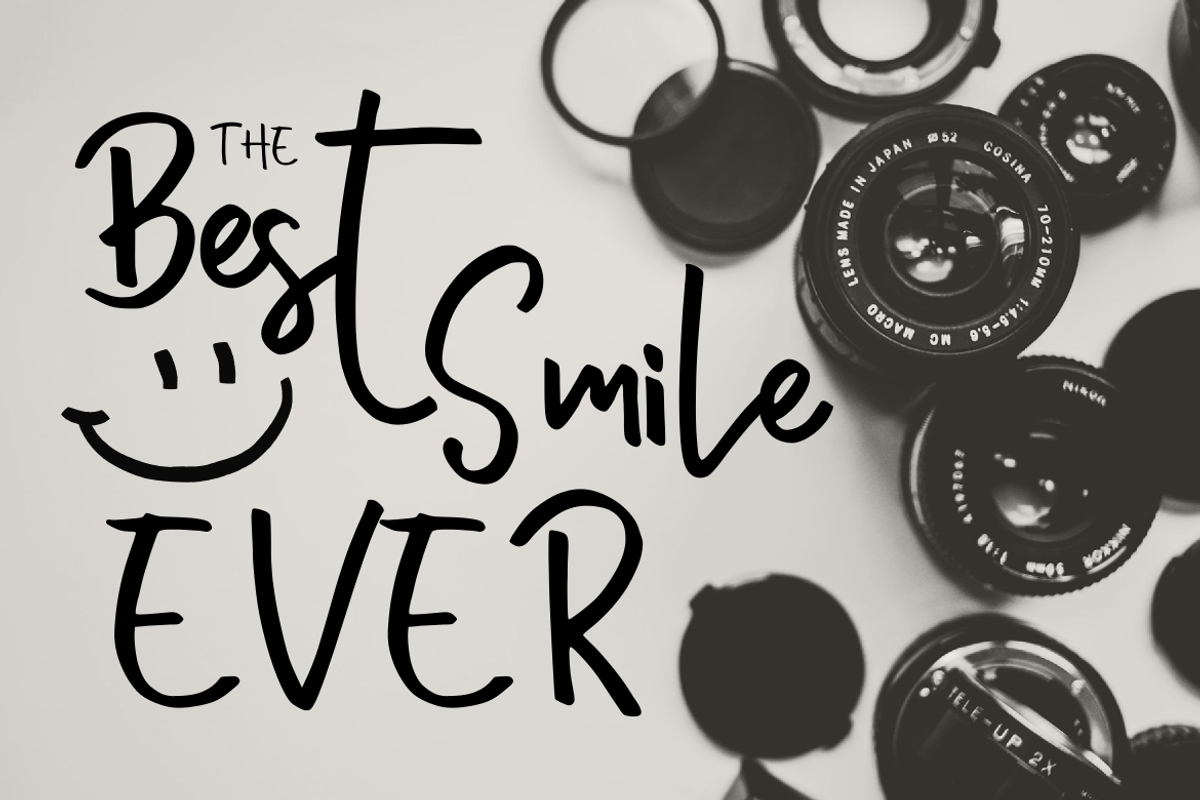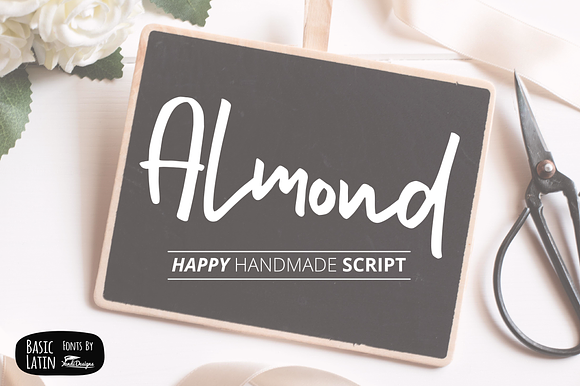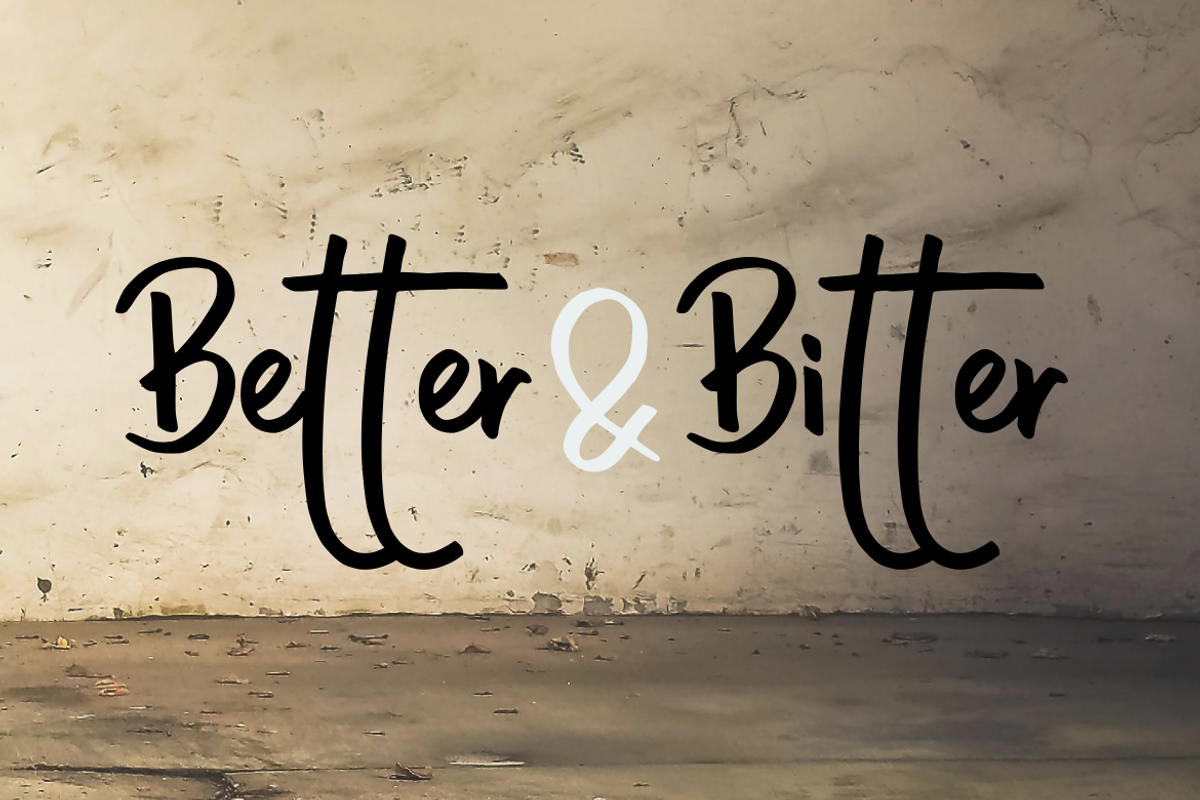
Almond Hand Lettering Script Fonts
Modern and artistic fonts , suitable for many project , quotes, logo , heading , title etc.
Almond Hand Lettering Script Fonts by YandiDesigns fits naturally into Branding, posters, packaging, typography.